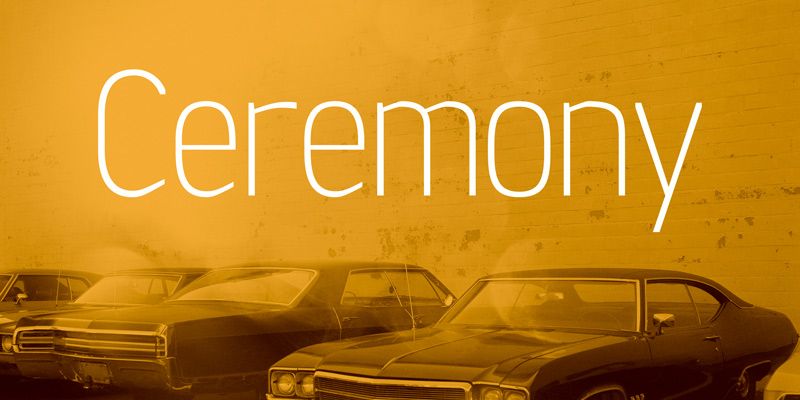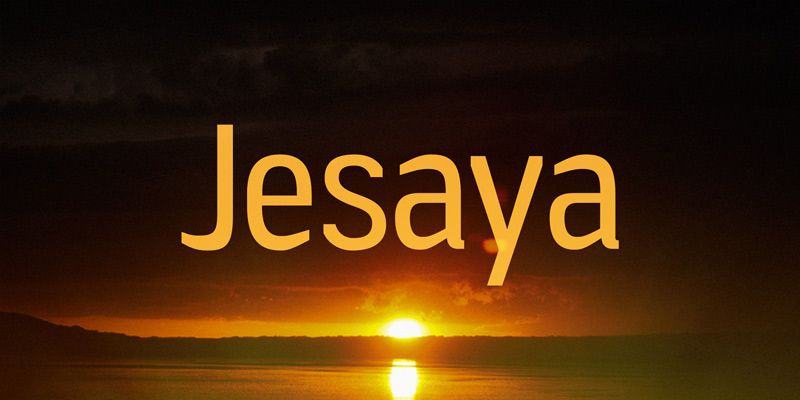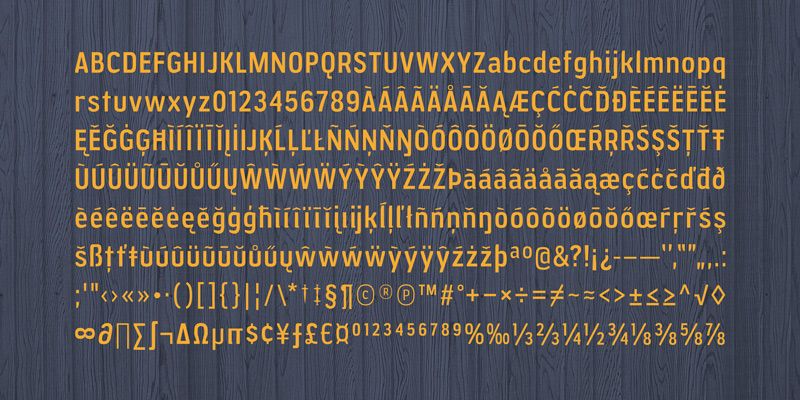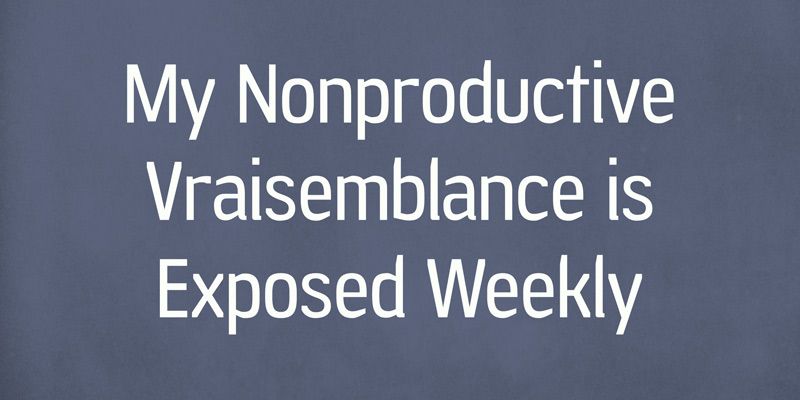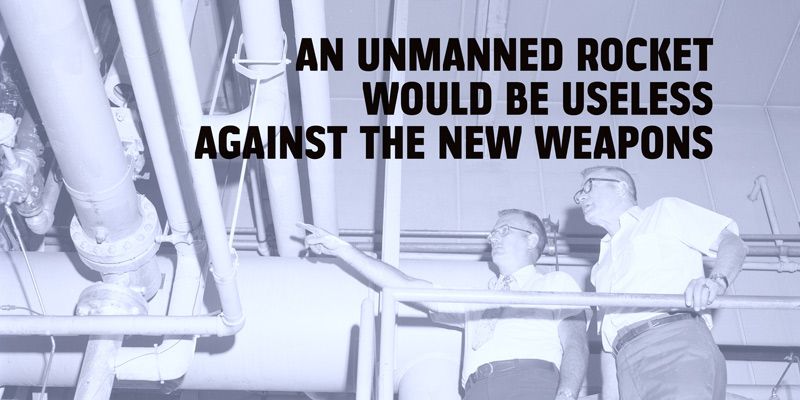
Jesaya brings small, deliberate cuts to the familiar structure of a sans serif. Trimmed points and sharp changes of direction give it a machined edge, yet the letters remain calm enough for headings, labels, and short explanations. Seven upright weights run from UltraLight to Heavy, allowing a product name, section title, and supporting line to share one visual language. The lighter styles can give a diagram or exhibition panel an exacting feel; Bold and Heavy put more force behind a launch graphic or package front. Its character comes from the details, so it need not be pushed toward exaggerated science-fiction styling.